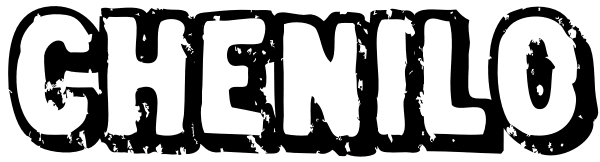
Chenilo
A grunge font that comes with different upper- and lowercase, alternate letters and ligatures for both double numbers and double letters - and on top of that, unique accented characters! You will need to use OpenType supporting applications to use...